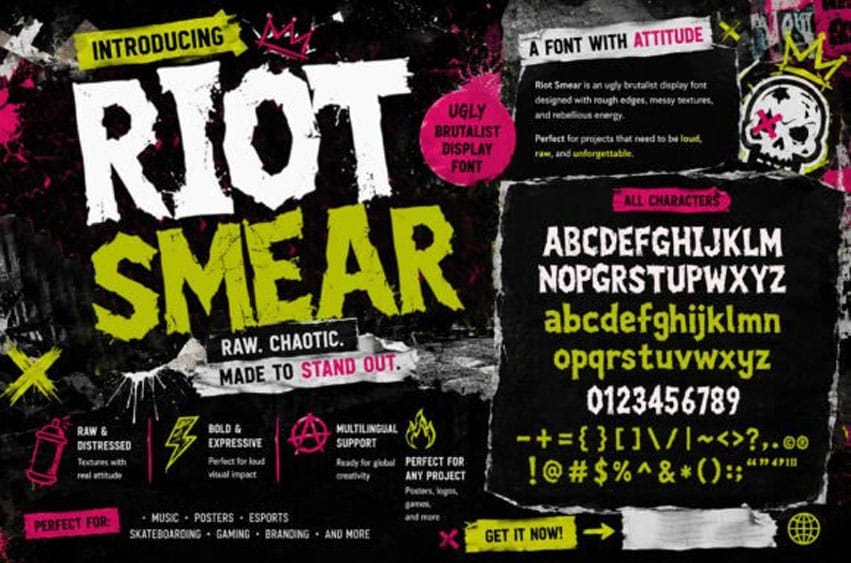
Riot Smear Font is a bold ugly brutalist display font with rough handmade textures, chaotic cuts, and raw urban energy.
Designed to stand out with its imperfect and rebellious aesthetic, this font is perfect for branding, music posters, gaming visuals, esports, skate culture, and expressive graphic design projects.